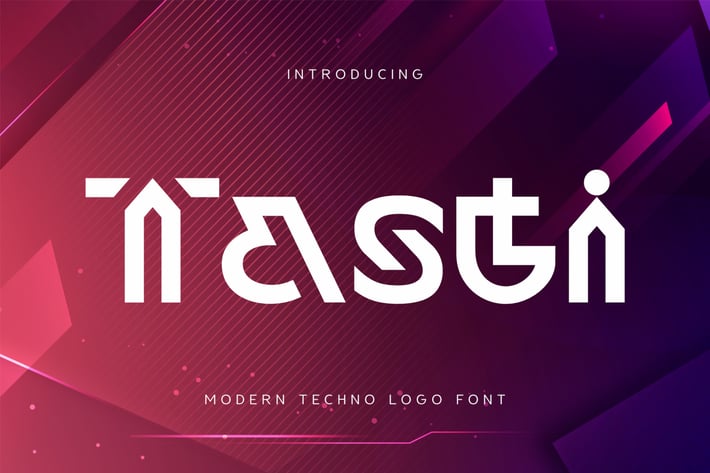
Tasti - Modern Techno Logo Font
Tasti is a Modern Techno typeface designed for standout branding in the tech world. With sharp geometric shapes and sleek, angular lines, Tasti captures the spirit of innovation—perfect for logos, digital products, and sci-fi inspired visuals.
Created with modern technology and cyber aesthetics in mind, Tasti is your go-to font for tech startups, esports teams, electronic music posters, and anything that needs a high-impact, next-gen look. Its minimalist yet striking design makes it ideal for UI/UX layouts, robotics themes, AI interfaces, and modern gaming titles.
Step into a new era of identity design with Tasti—a logo font built for the future.
Tasti – Modern Techno Logo Font Features:
- Techno-inspired letterforms with a strong, clean presence
- Perfect for futuristic logos, sci-fi branding, and tech design
Bring your visual identity into the future with Tasti—the ultimate font for modern, tech-driven branding.
Design the future. Own the look.